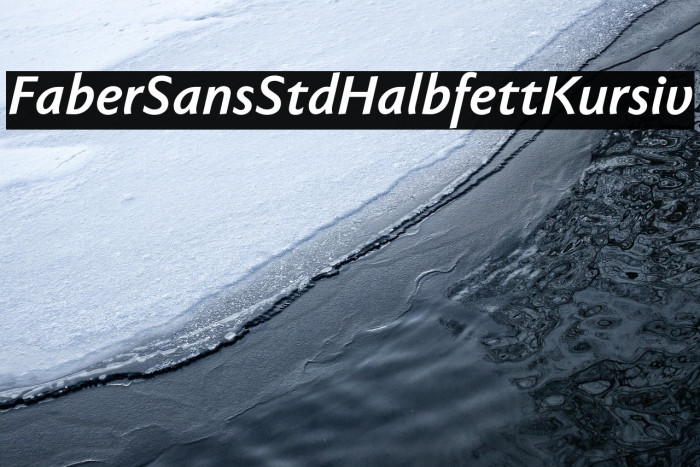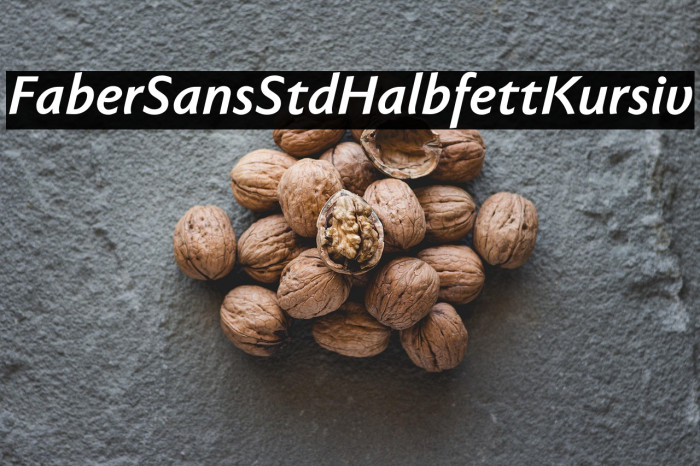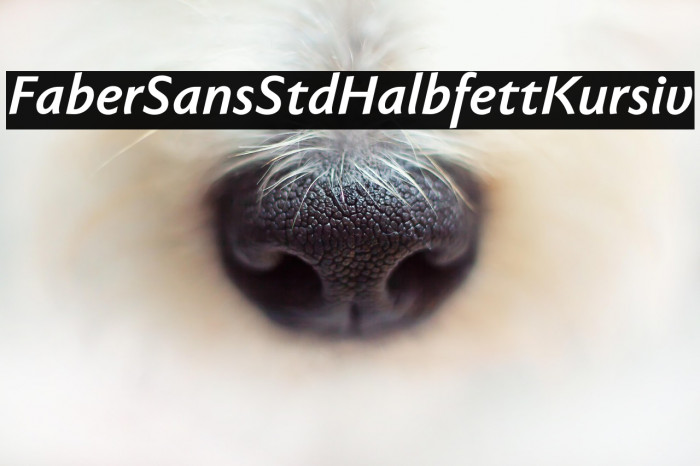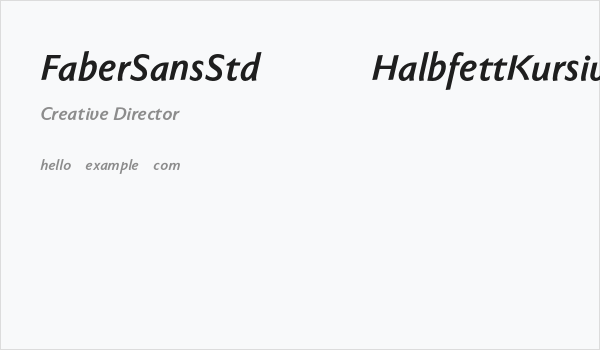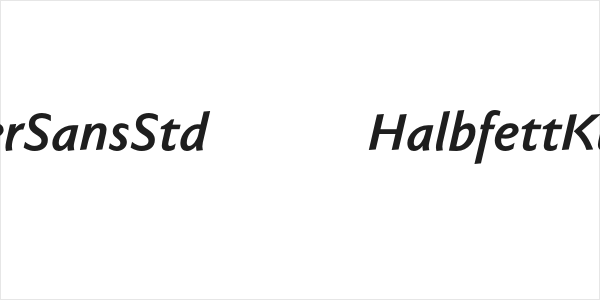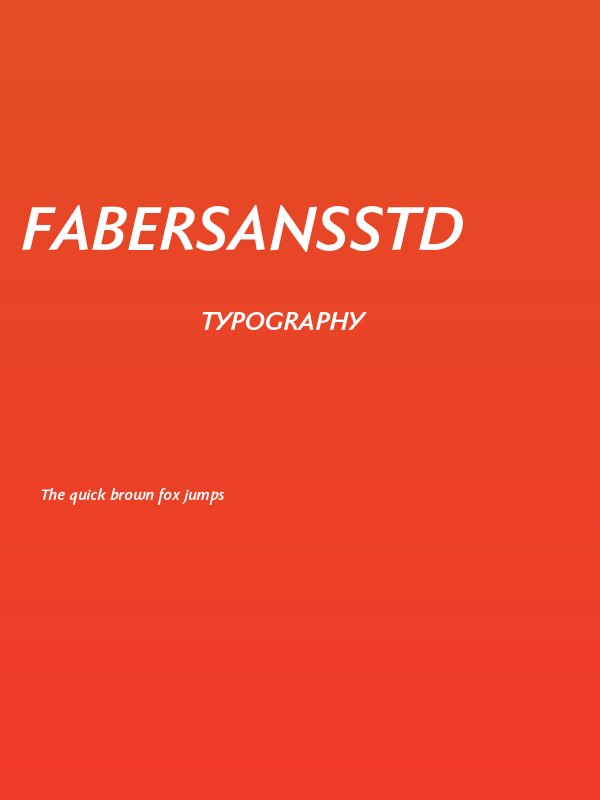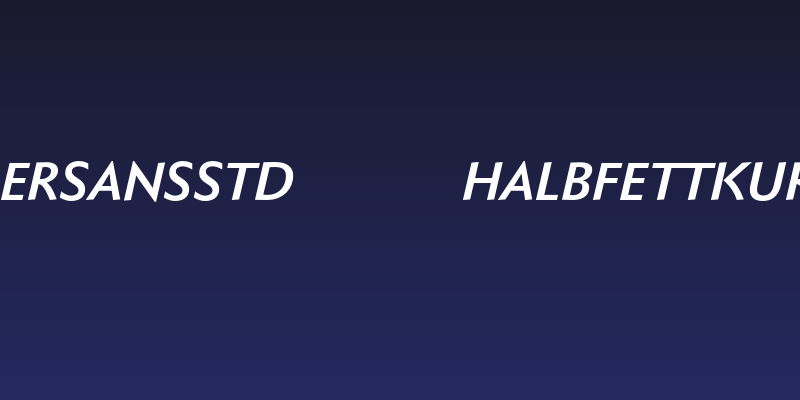
FaberSansStd-76HalbfettKursiv Font
FaberSansStd-76HalbfettKursiv Description
This font exhibits a clean and modern sans-serif style with a slight italic slant, giving it a dynamic and forward-moving appearance. The characters are well-proportioned, with a consistent stroke width that maintains readability across various sizes. The uppercase letters are bold and assertive, while the lowercase letters retain a friendly and approachable feel. The numerals are clear and distinct, ensuring legibility in both print and digital formats. The overall design is versatile, making it suitable for a wide range of applications from corporate branding to editorial design.